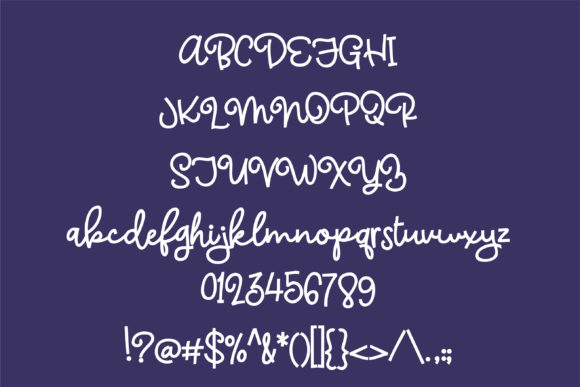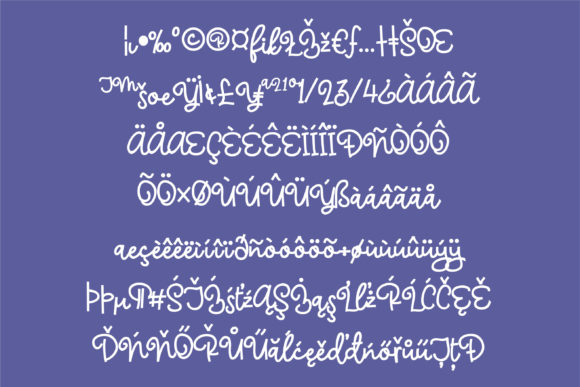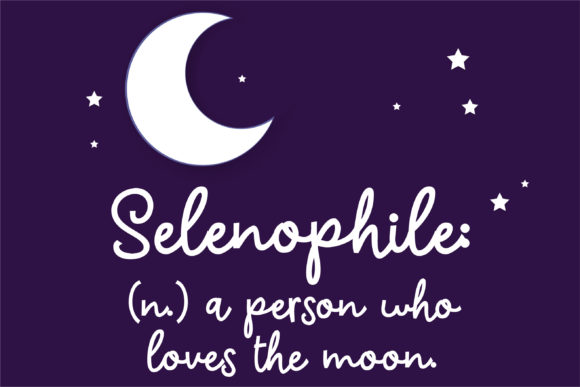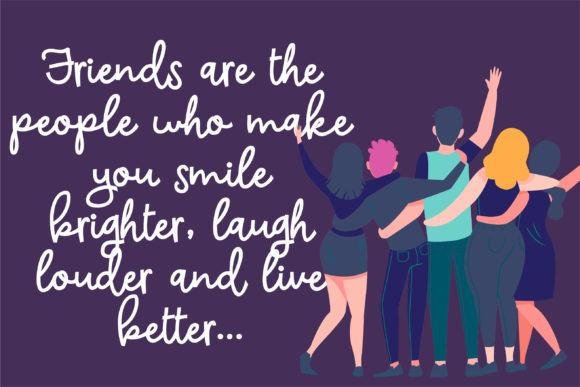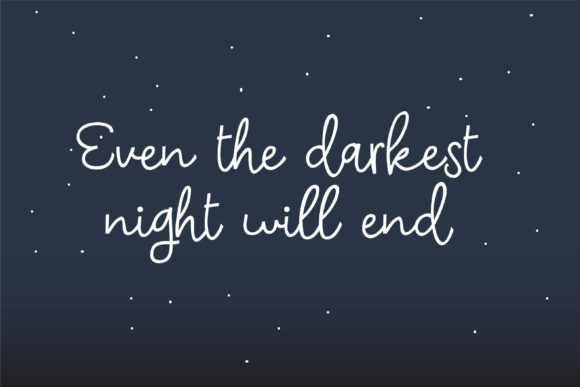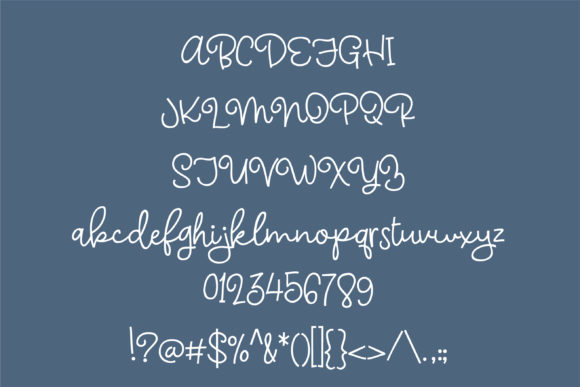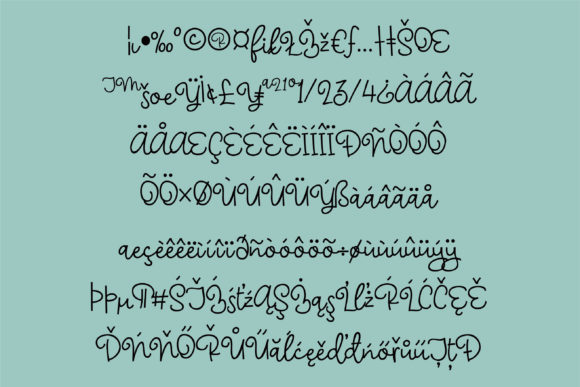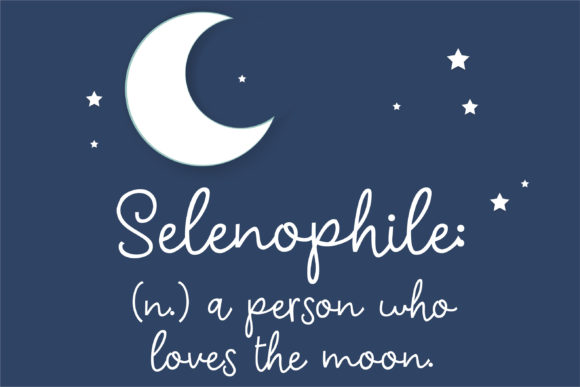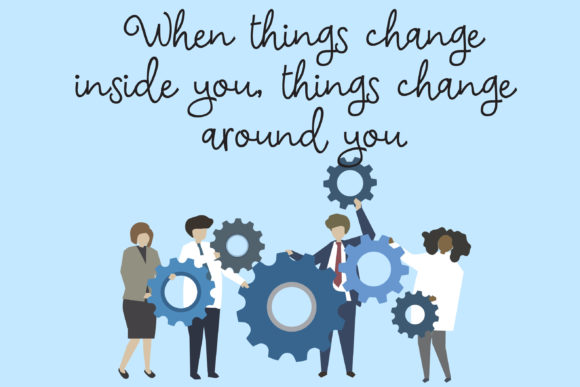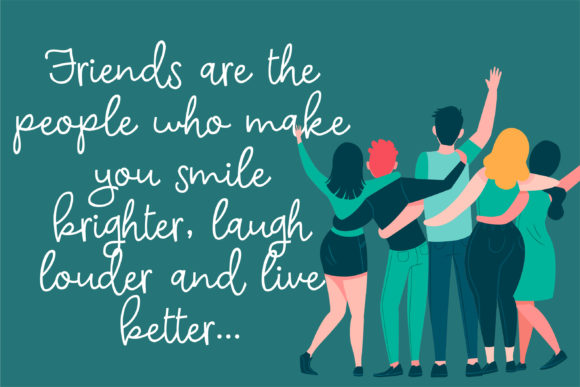
Supermoon Font
About Supermoon Font
Supermoon is a sweet and round lettered handwritten font, masterfully designed to become a true favorite. Its neat and simple style makes this font incredibly fit for both formal and non-formal contexts.